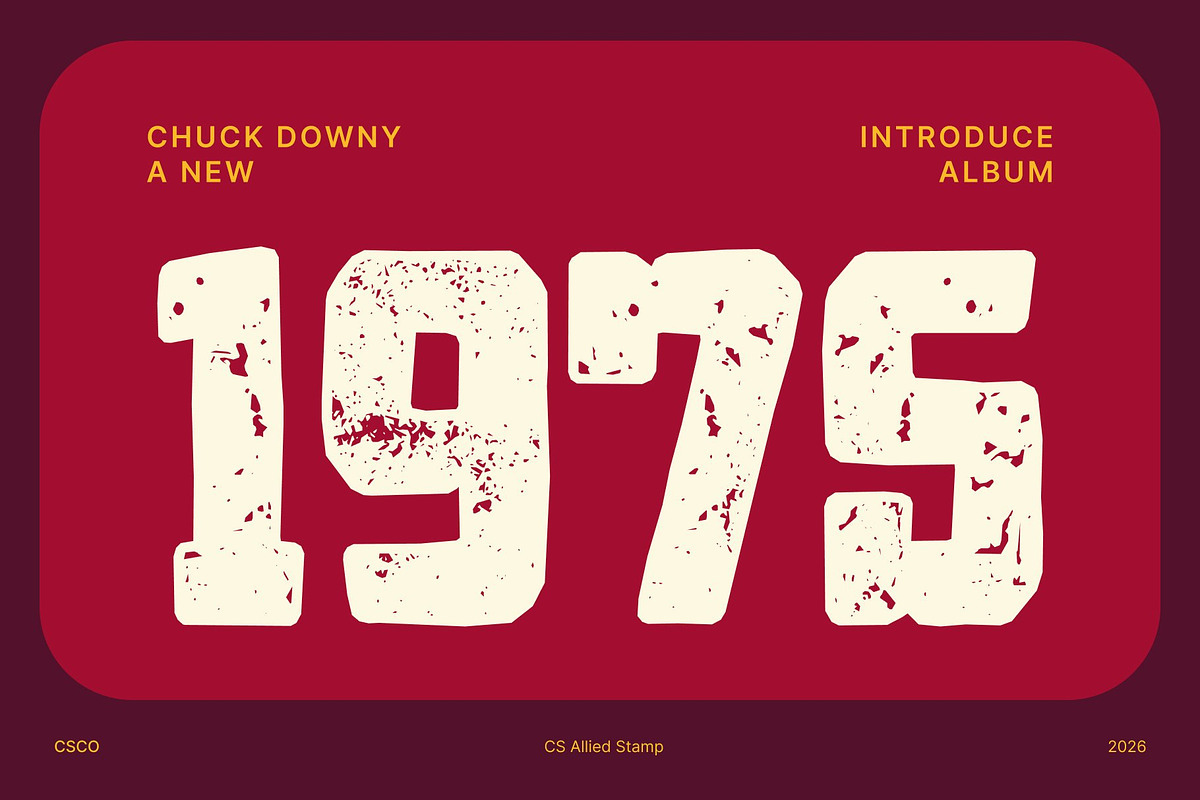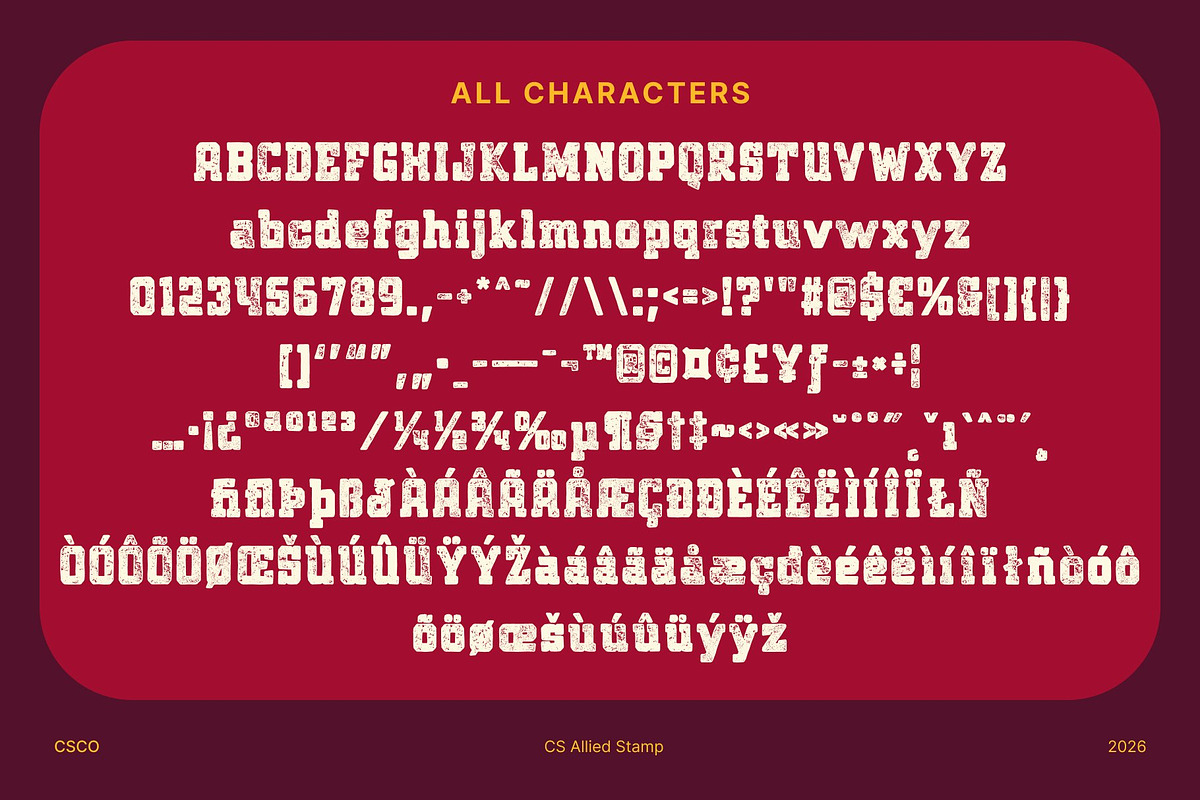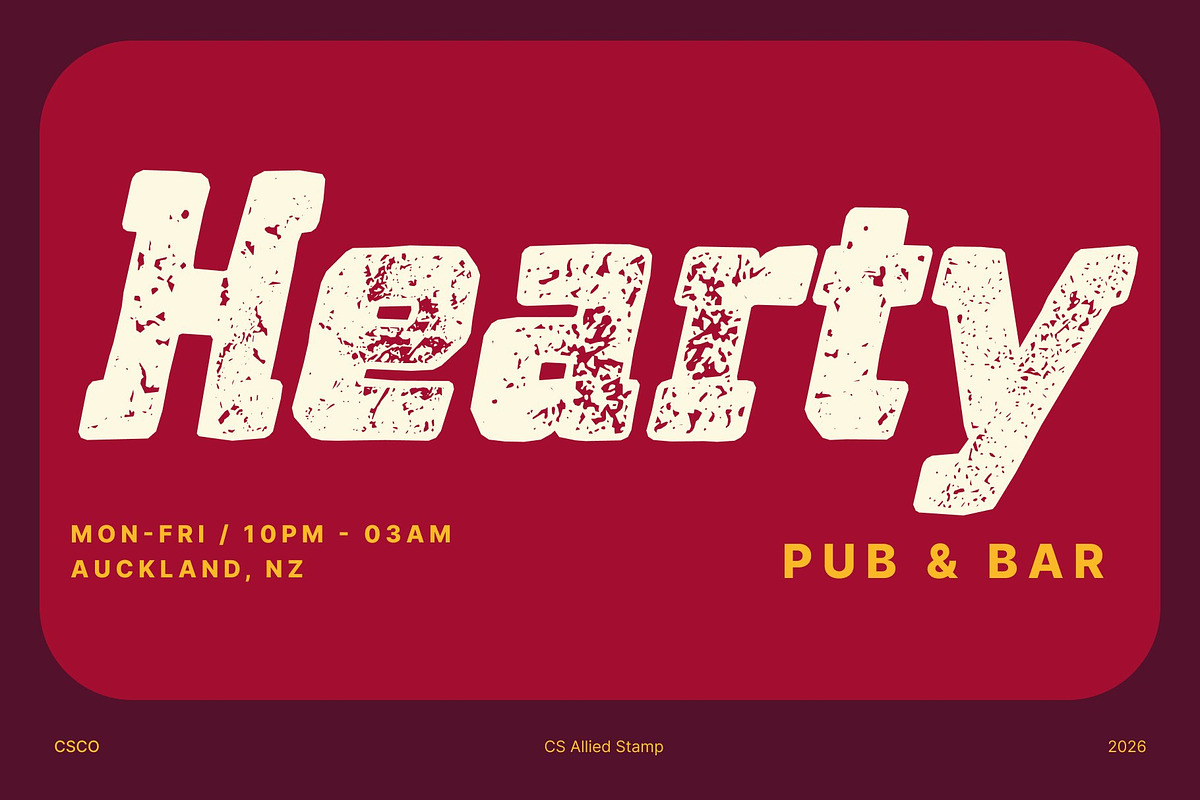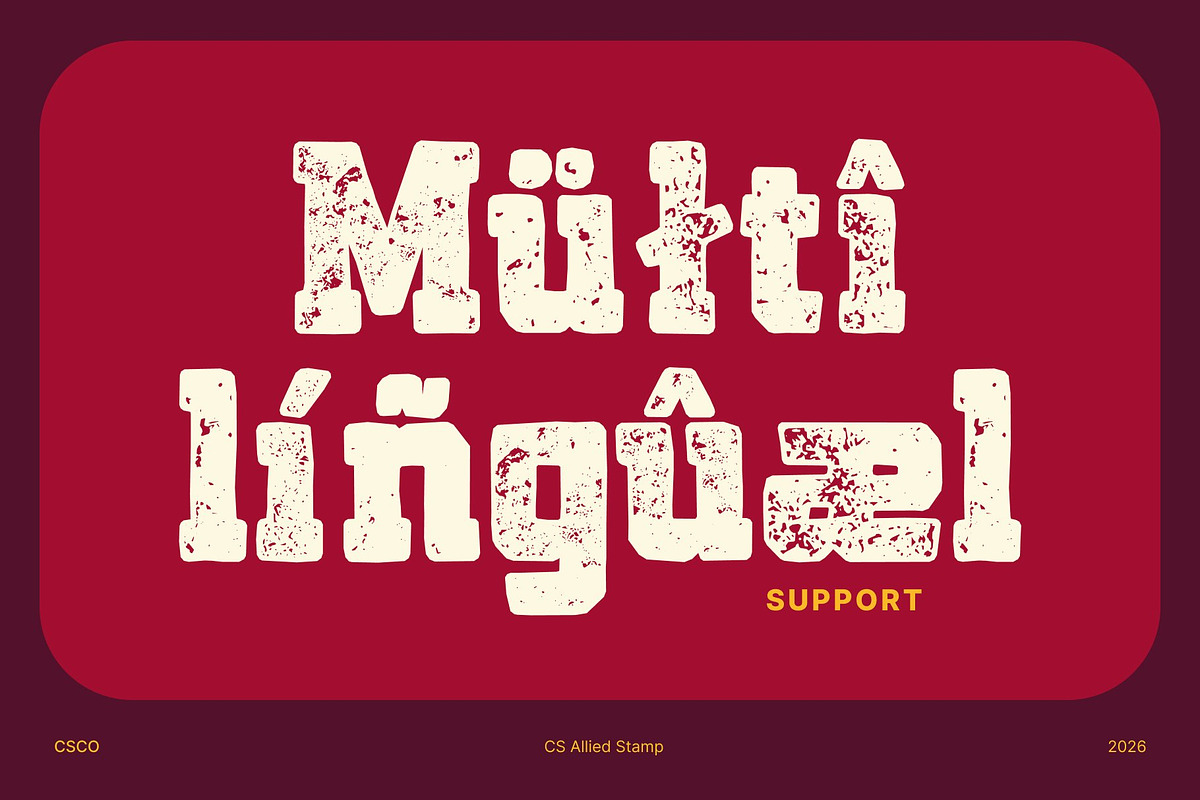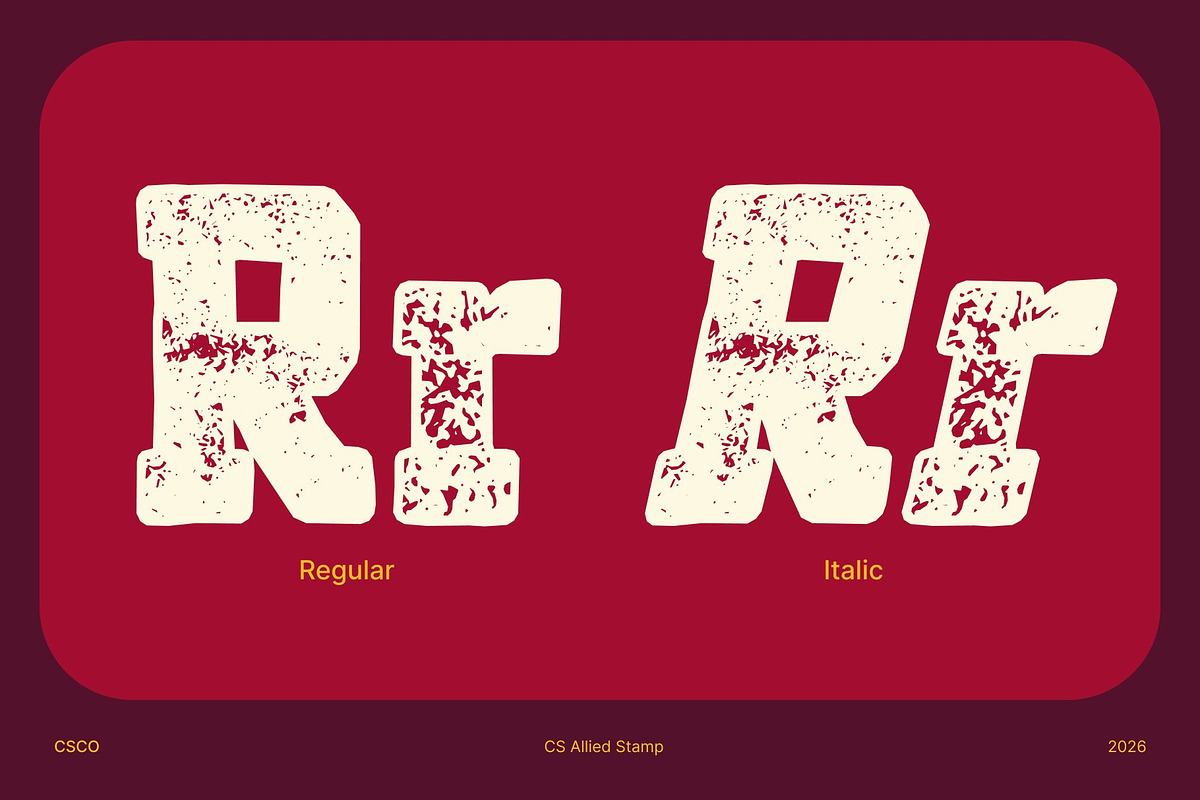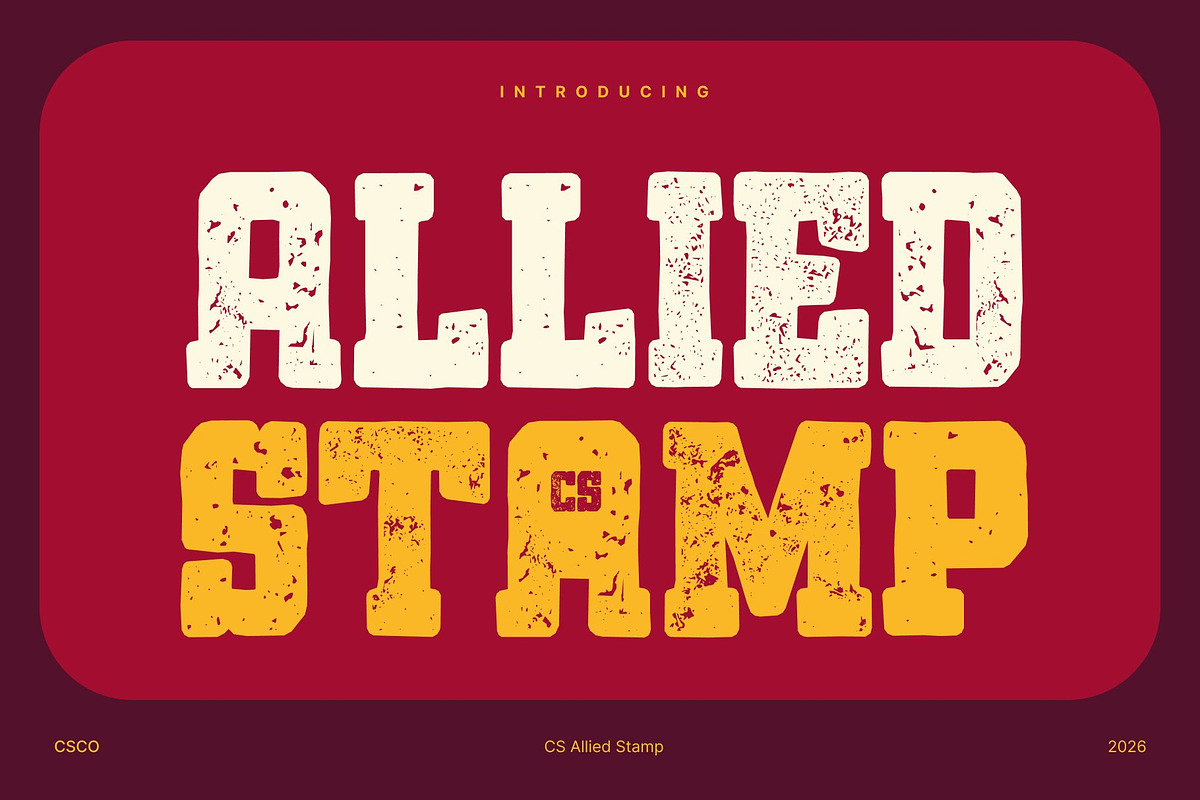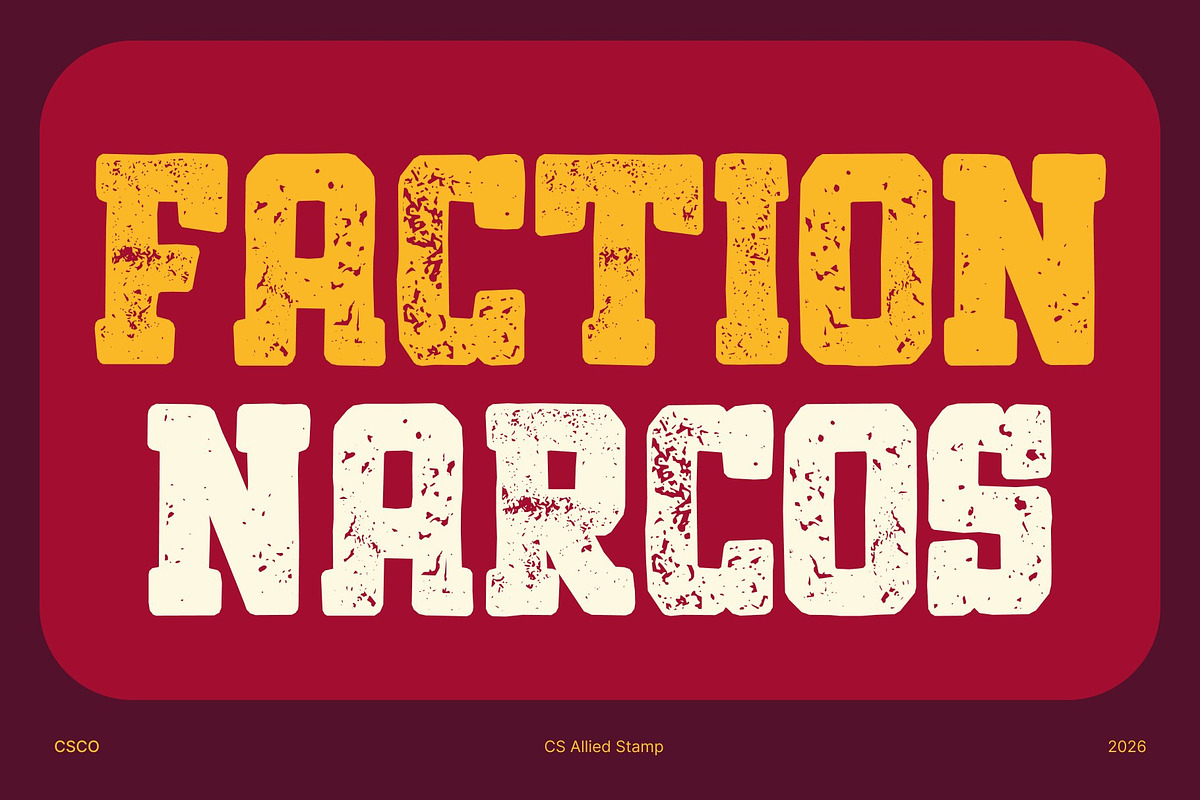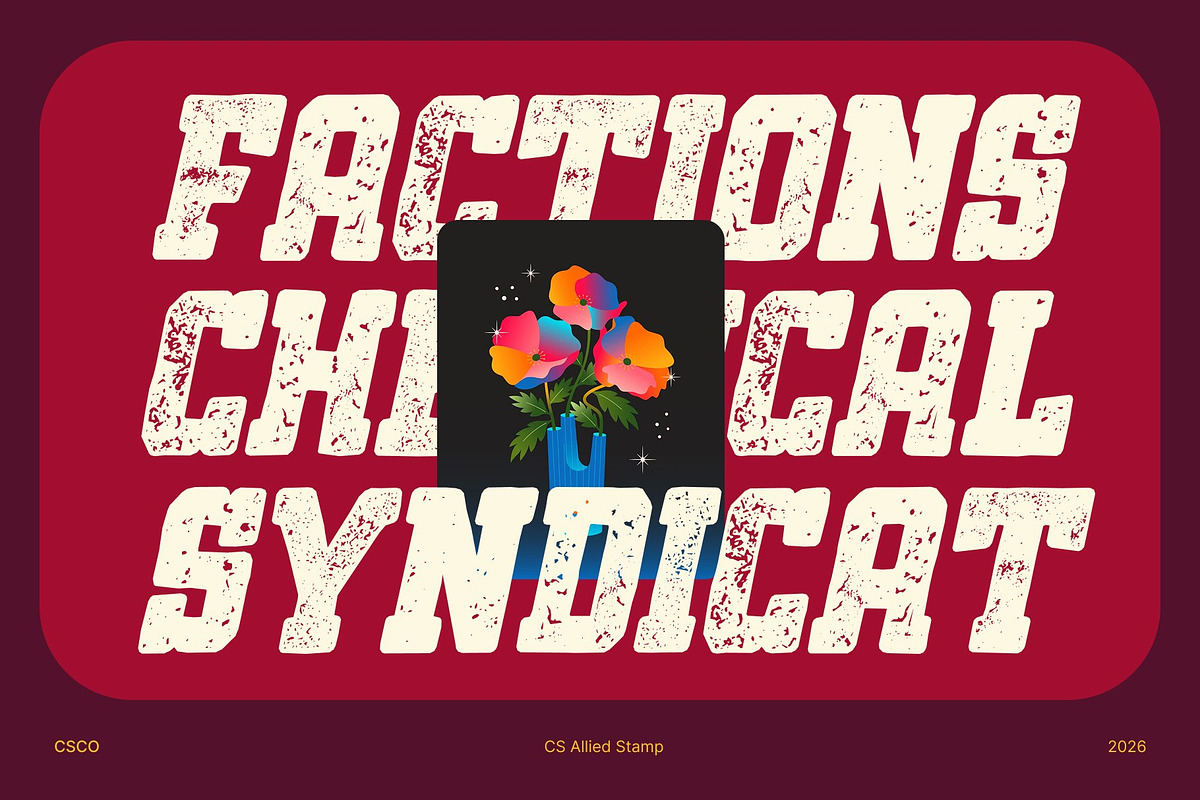
CS Allied Stamp
CS Allied Stamp – Sporty Slab Serif with Bold, Vintage Power Strong Slab Serif Design with Sporty Confidence This is a powerful slab serif font built to deliver strength, energy, and assertiveness with a rugged edge. Its bold structure and solid slab serifs create an athletic, competitive tone, while the stamped texture introduces a raw, hands-on character that feels tough and authentic. Every letter stands firm with a commanding presence that instantly captures attention.
Stamped Texture with Gritty, Vintage Character The stamp effect adds a layer of visual depth through subtle distress, textured edges, and an imperfect finish. This treatment brings a vintage, industrial feel to the modern slab serif form, giving the font an expressive, worn-in look without sacrificing clarity or impact.
High Visibility with Bold, Durable Forms Designed for display use, this font maintains excellent readability at any scale. Its thick strokes and sturdy construction ensure strong visibility for headlines, posters, billboards, and large-format graphics, even when combined with its textured, stamped appearance.
Modern Strength Meets Retro Toughness With contemporary proportions and a durable slab-serif foundation, this font balances modern branding needs with old-school toughness. It’s ideal for logos and identity systems that require confidence, resilience, and a bold visual voice enhanced by a handcrafted, vintage touch.